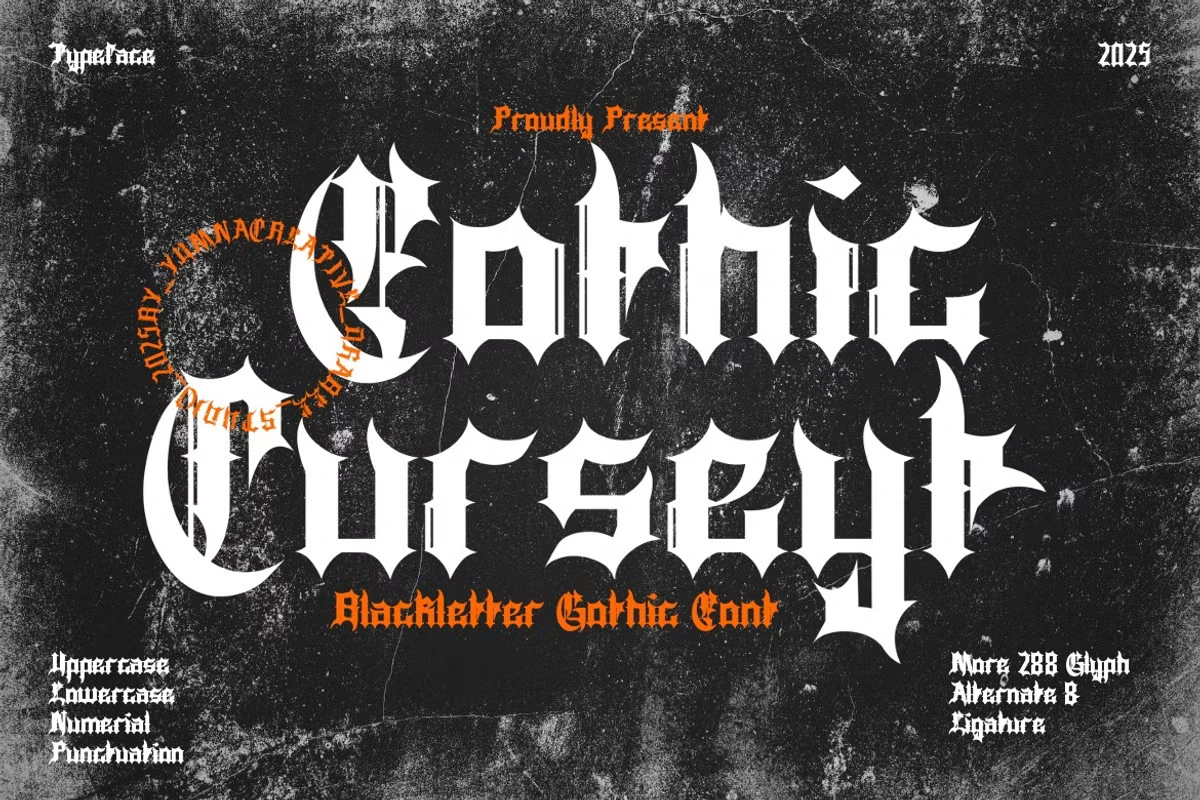
Curseyt is an elegant blackletter gothic font. It has beautiful letters as well as a unique combination of ligatures letter, so that the authors write it in a delicate way with a swirly embedding a contemporary font is created and ready to give elegance and uniqueness to the next design. Include it into your most creative ideas and you shall find how it makes them to stand out!
Curseyt Blackletter Font